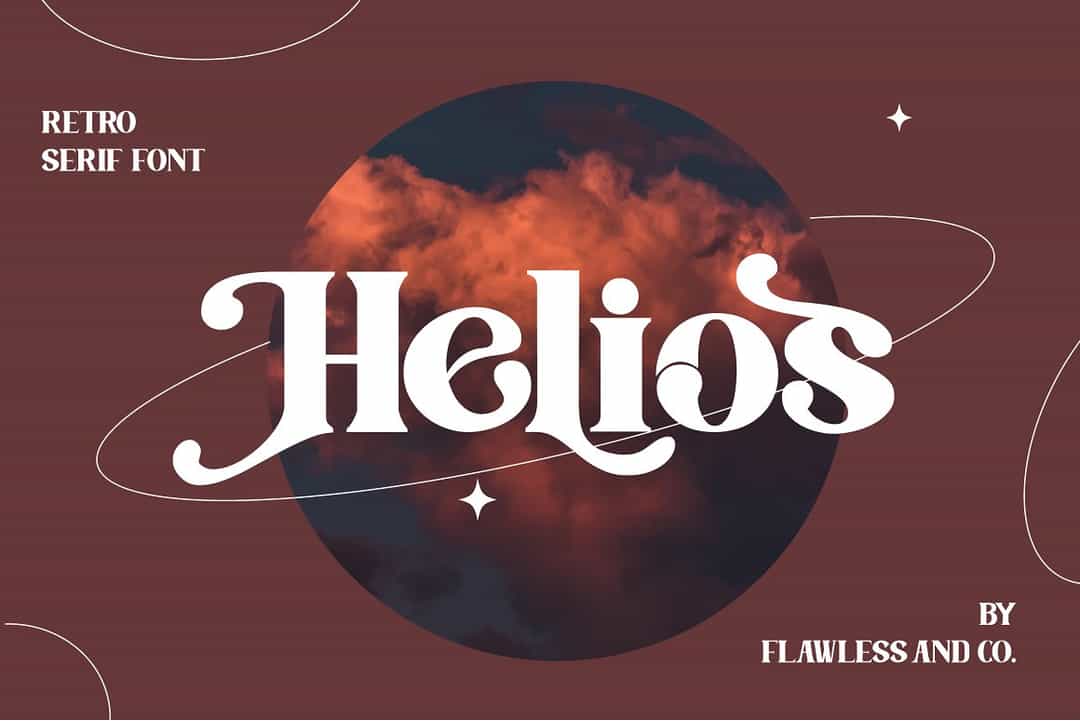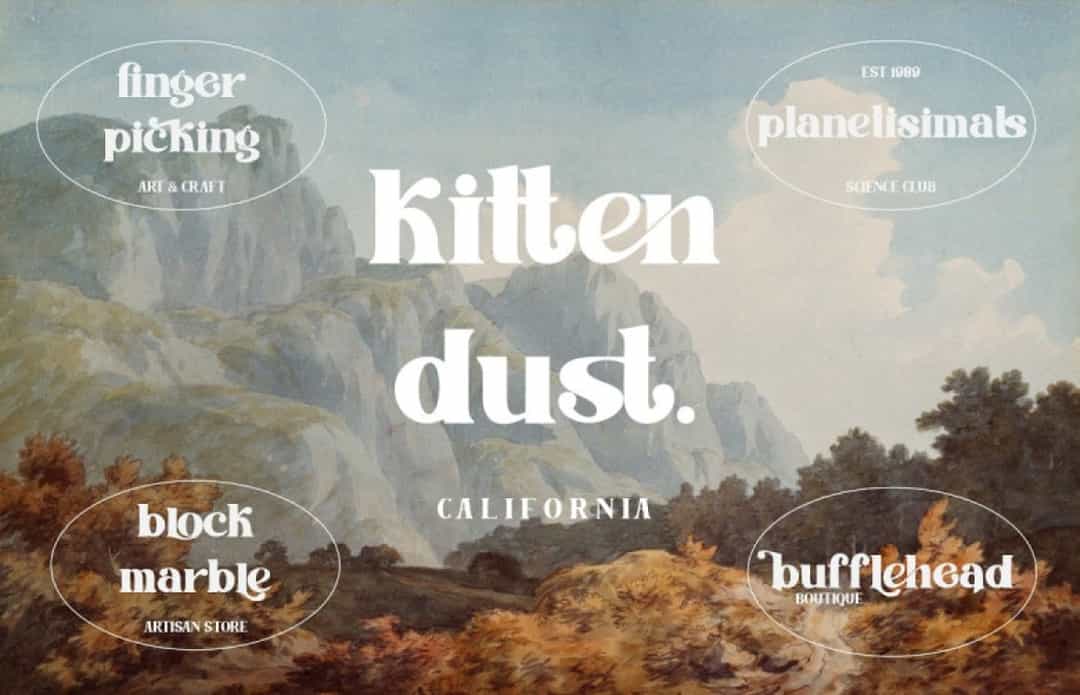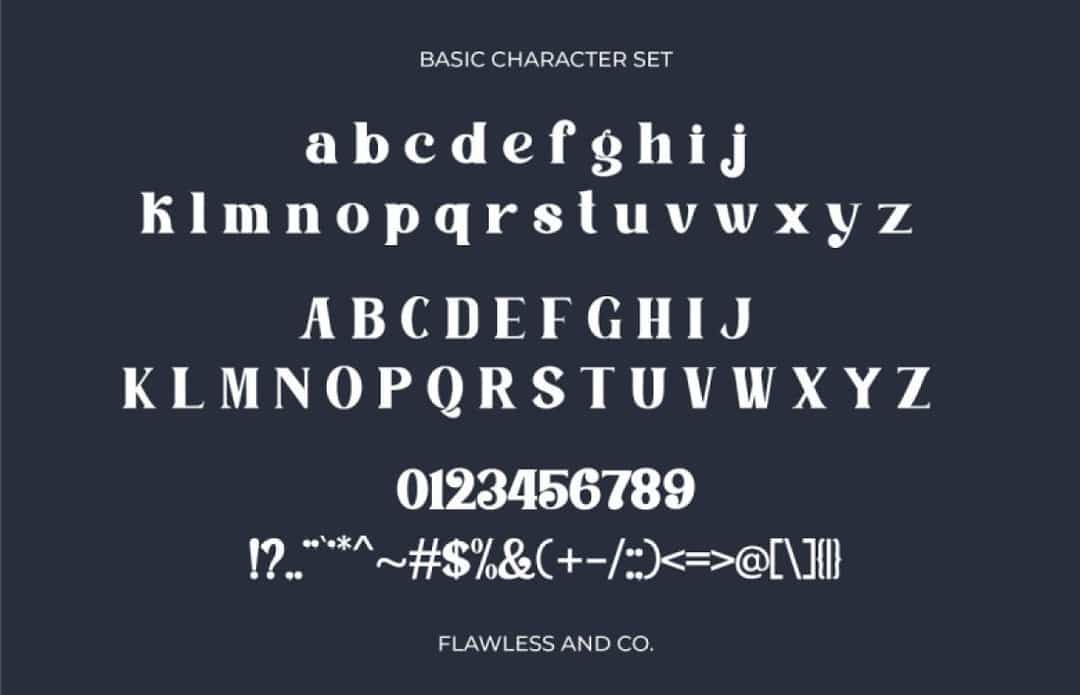
Discover Helios Font, part of the Serif Retro collection—a versatile and unique font perfect for adding a personal touch to your projects. Download it for free and enjoy crafting designs with style, from invitations to social media posts. This font is available exclusively for personal use, giving you the freedom to create without limits. Unlock your creativity with Helios Font today!
We are pleased to present “Helios”, our brand latest Modern Retro font with its fun and elegant style serif serif font, perfect for logos, branding invitations, master head heads and invitations among others.